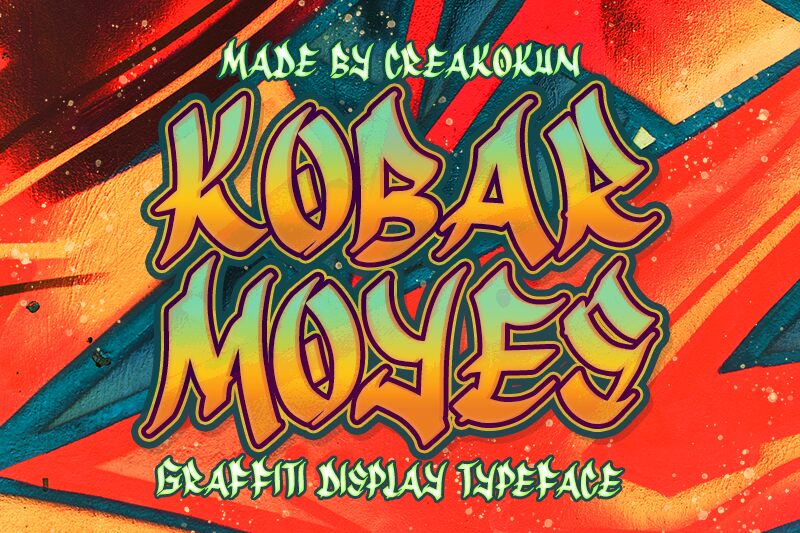
Kobar Moyes, designed by M Arif Dwi Prasetyo & Eko Nurcahyo, is a bold graffiti font perfect for outdoor advertising, modern packaging design and street art projects. Its unique style will give your work a creative edge.
Kobar Moyes